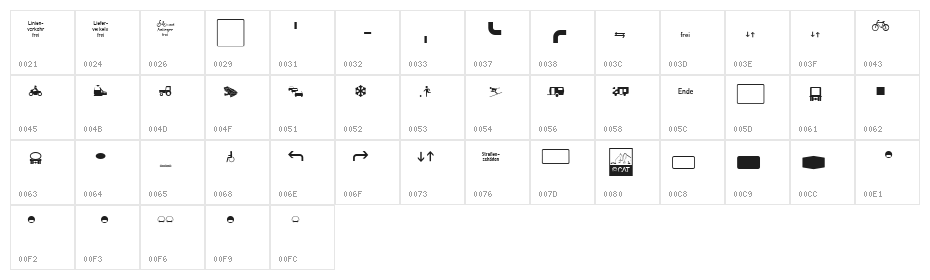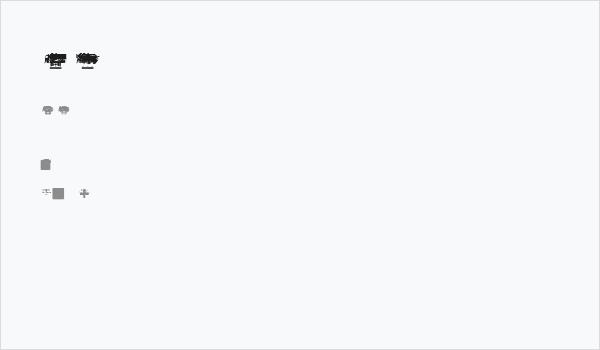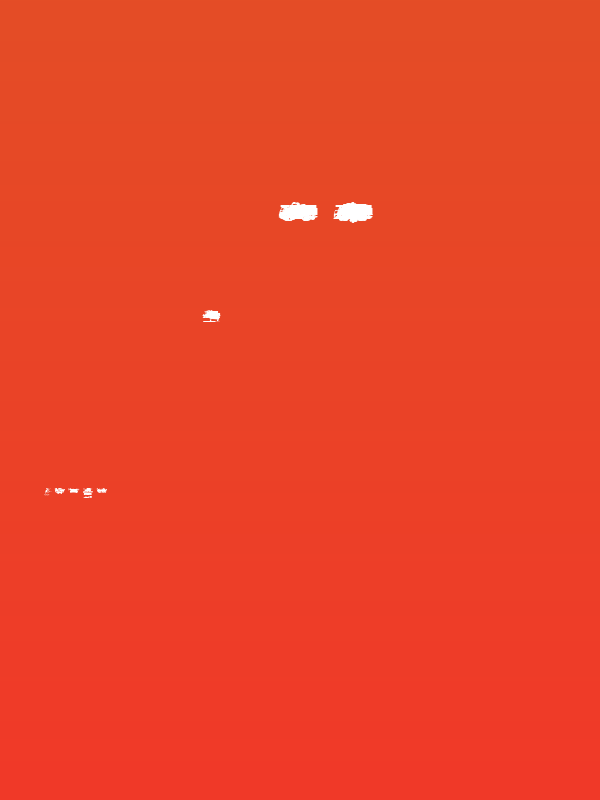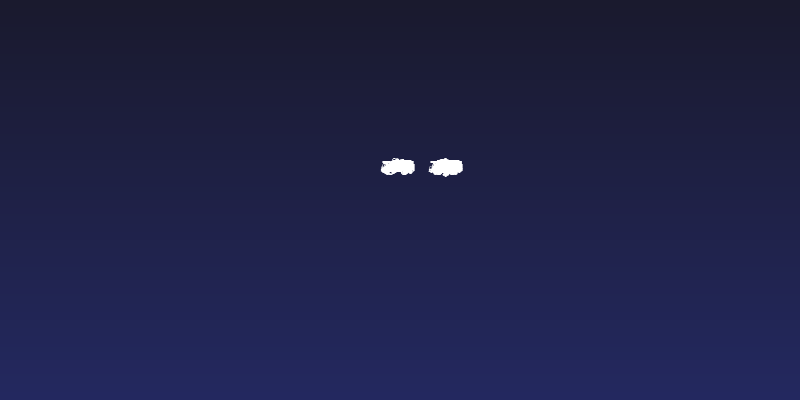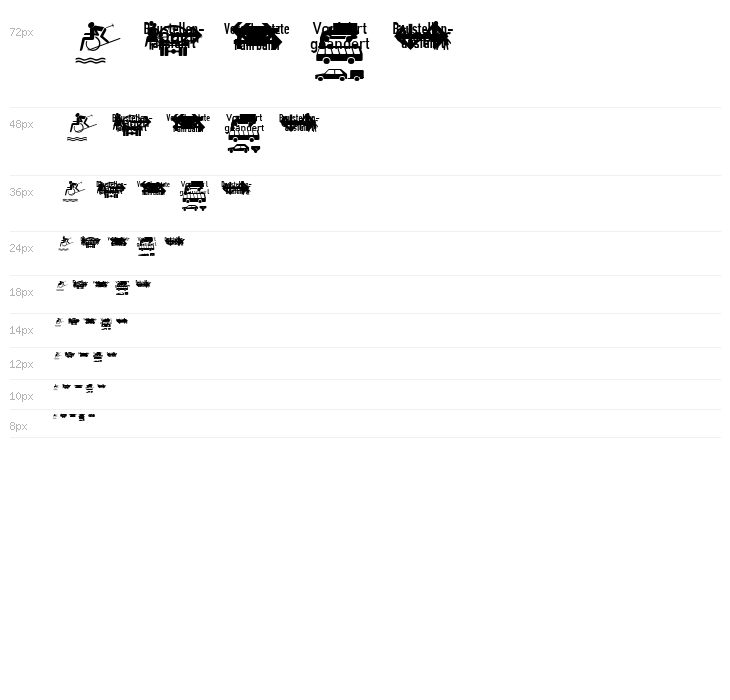
Zeichen Vierhundert Font
Zeichen Vierhundert Description
This image contains pictograms and icons representing vehicles, trees, and interface elements, rather than a traditional font with a full alphabet and numerals.
| Overall Style | Pictographic, functional |
| Use Case | Icons, signage, wayfinding, UI elements |
| Proposed Projects | Signage, infographics, user interface icons, transportation maps. |